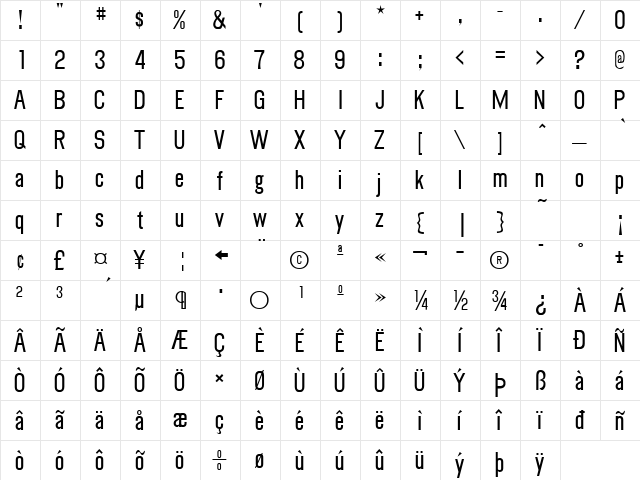
Myhota Bold
Design Context for Myhota Typeface
Myhota takes a measured approach to typography — its balanced proportions and neutral character make it a reliable workhorse for both digital and print work. Its bold stroke weight gives it real presence on the page.